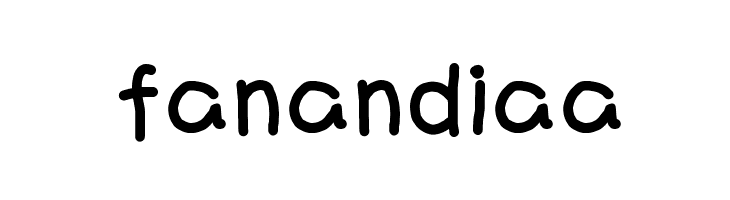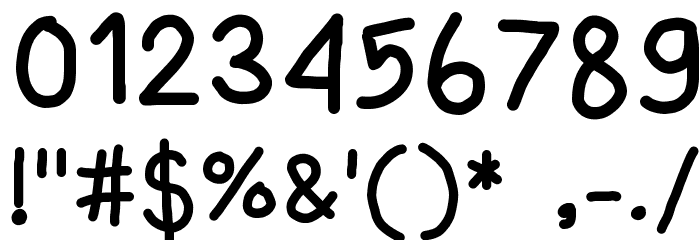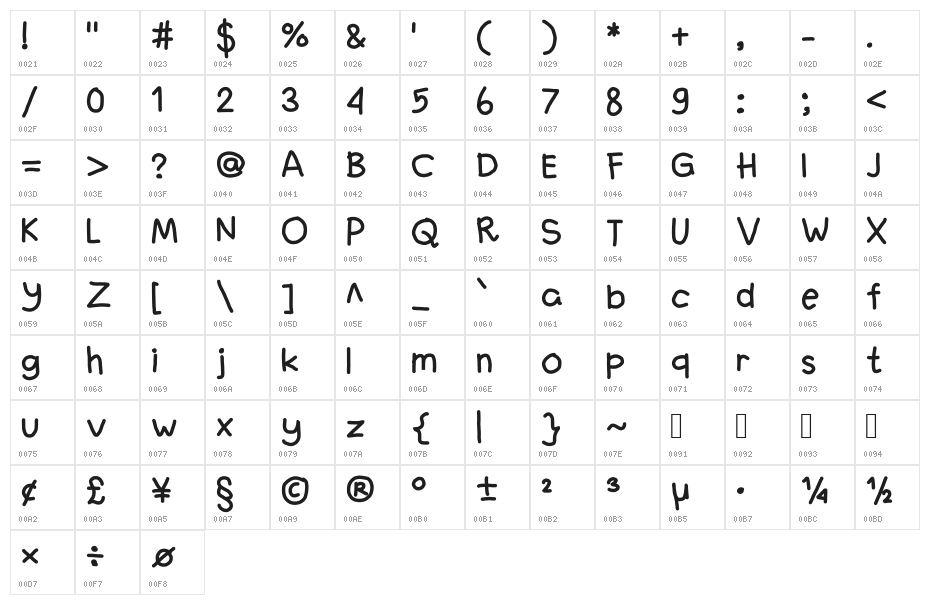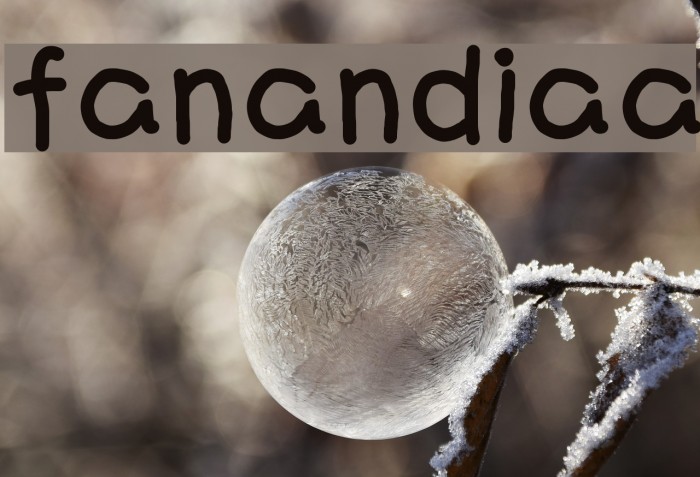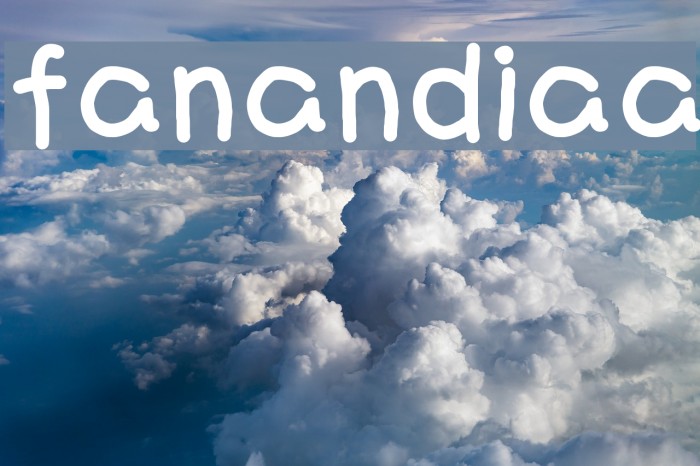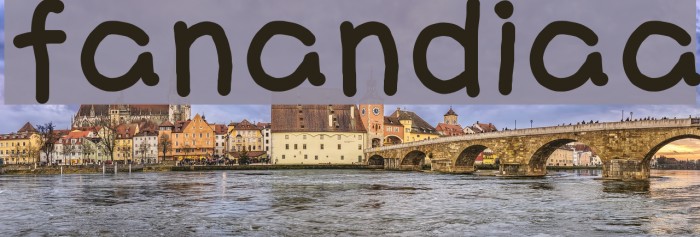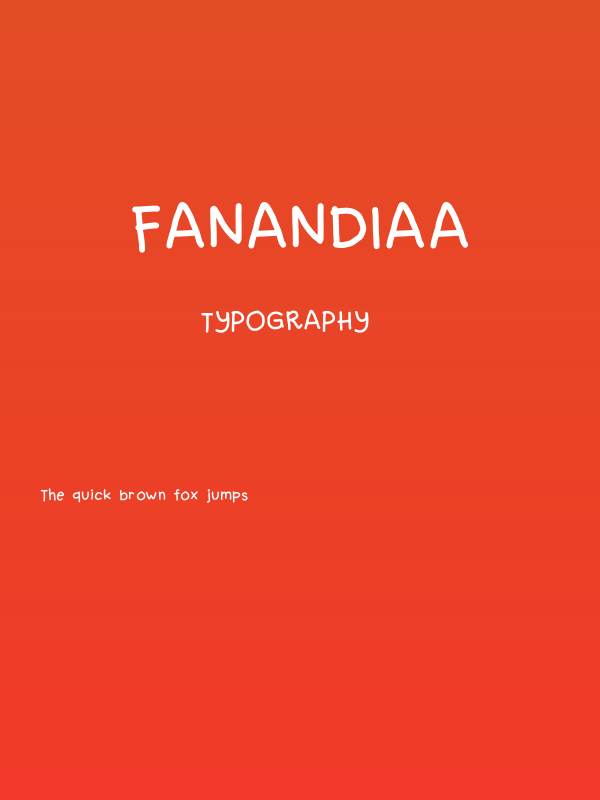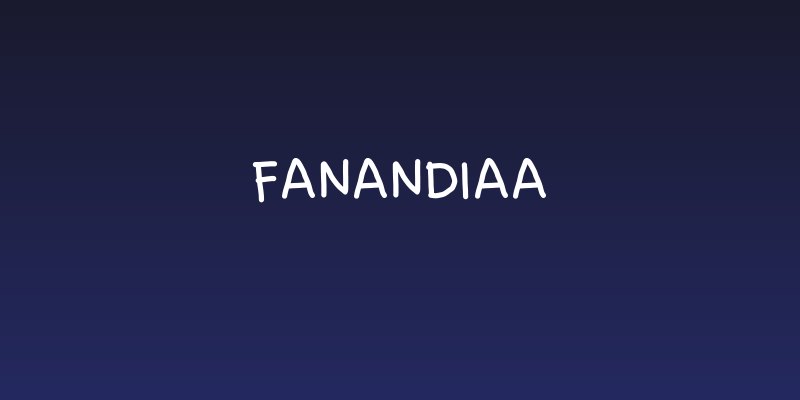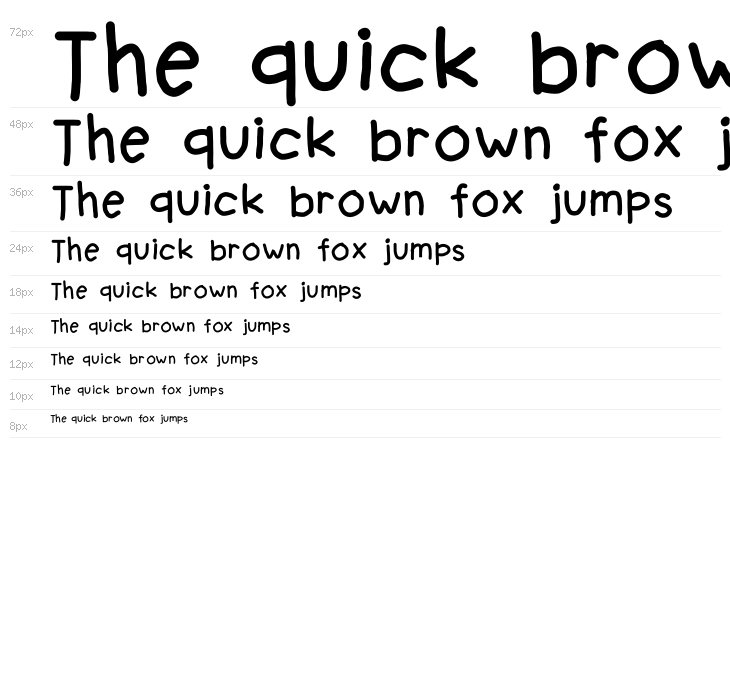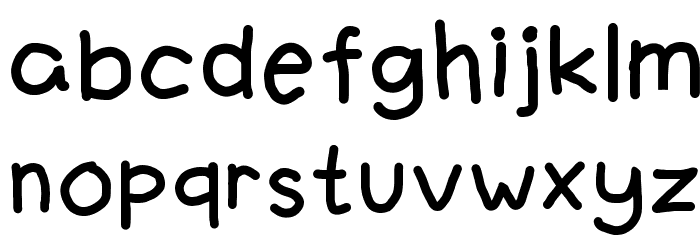
fanandiaa Font
fanandiaa Description
This playful and informal font features rounded, hand-drawn characters that exude a friendly and approachable vibe. The letters are slightly irregular, adding to the casual and whimsical feel. The strokes are consistent in width, giving the font a uniform appearance despite its hand-crafted style. The characters are well-spaced, ensuring readability while maintaining a relaxed aesthetic. This font includes a full set of uppercase and lowercase letters, numbers, and a variety of special characters, making it versatile for different design needs.
| Use Case | Headlines, Informal text, Branding |
| Proposed Projects | Ideal for children's books, playful branding, greeting cards, and casual social media graphics. |